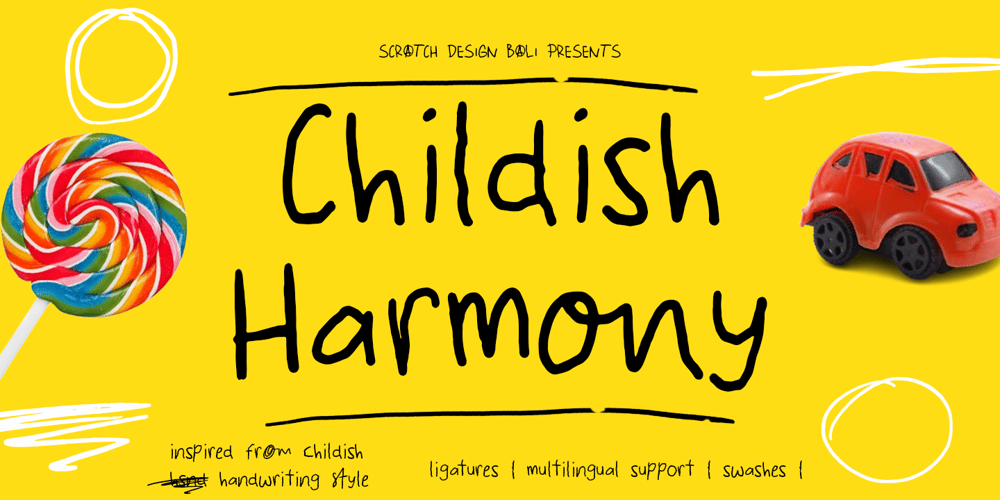
Childish Harmony Font Family was designed by Gitayogi Irhandi and published by Scratch Design. Childish Harmony contains 1 styles and family package options. Childish Harmony is a font inspired by the handwriting of young children. It features cheerful, irregular strokes filled with the wonder and creativity characteristic of a child’s touch. Each letter has unique variations as if written by small, enthusiastic hands. Childish Harmony is perfect for projects that need a touch of imagination and joy, such as greeting cards, children’s party invitations, and educational-themed designs.Includes: Uppercase and Lowercase Numbers & punctuation Unique Ligatures Swashes Multilingual support We hope you enjoy our font!